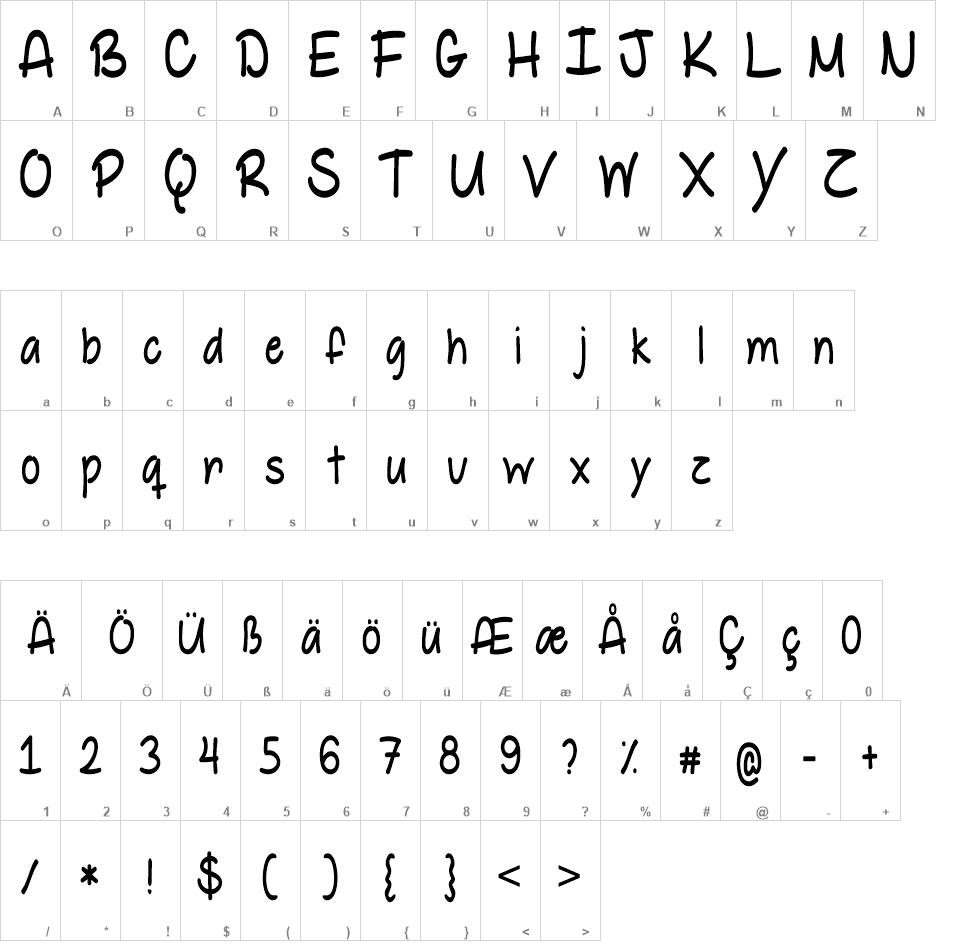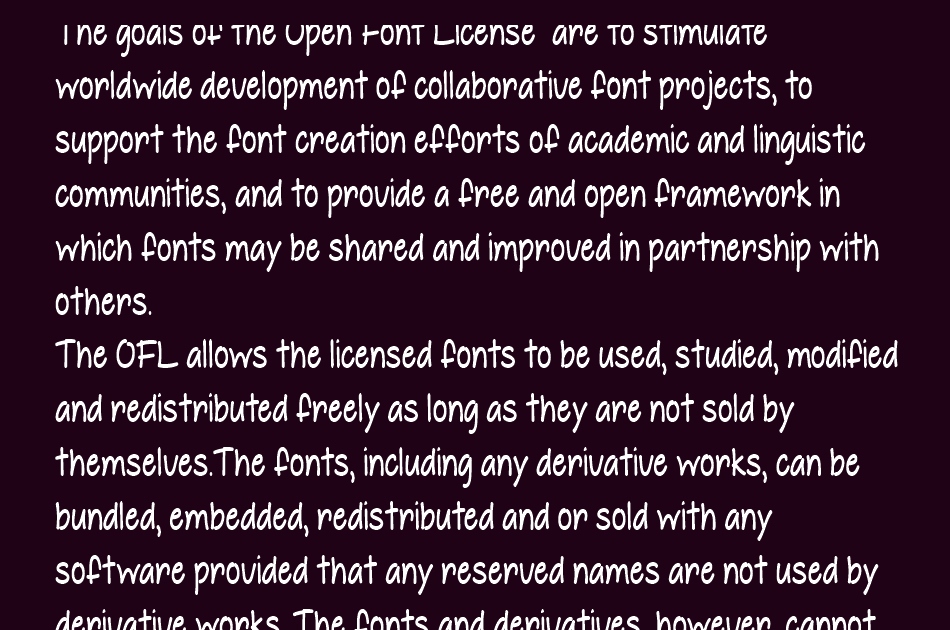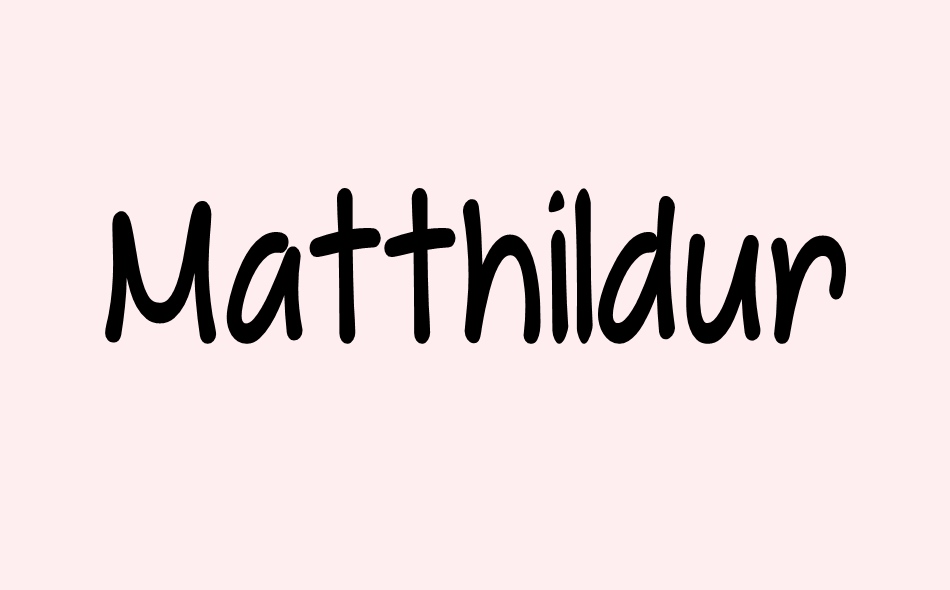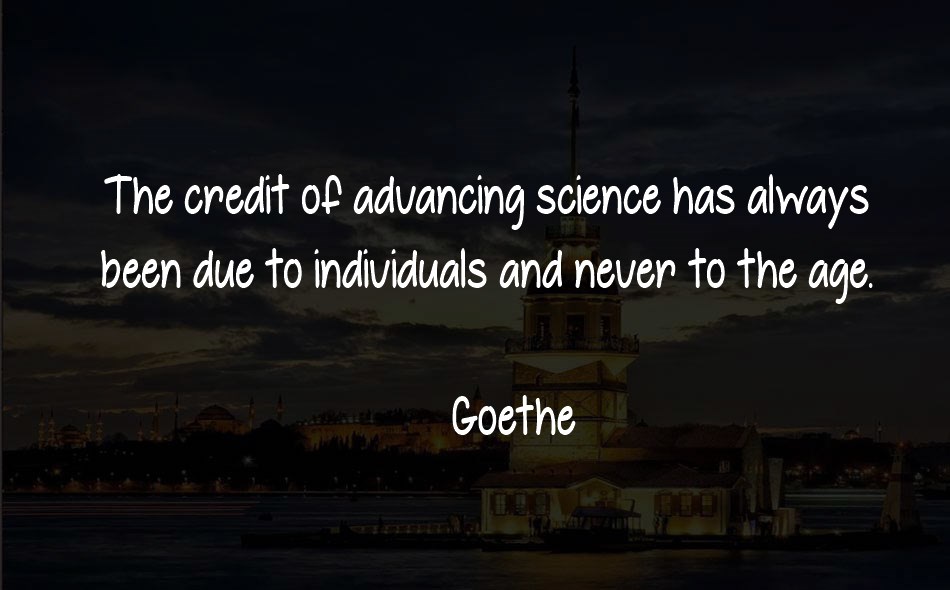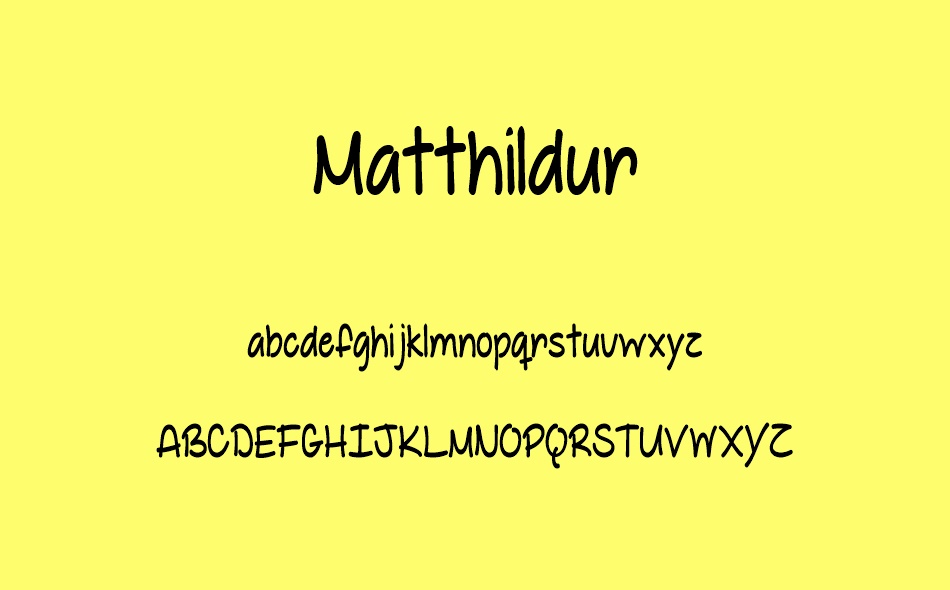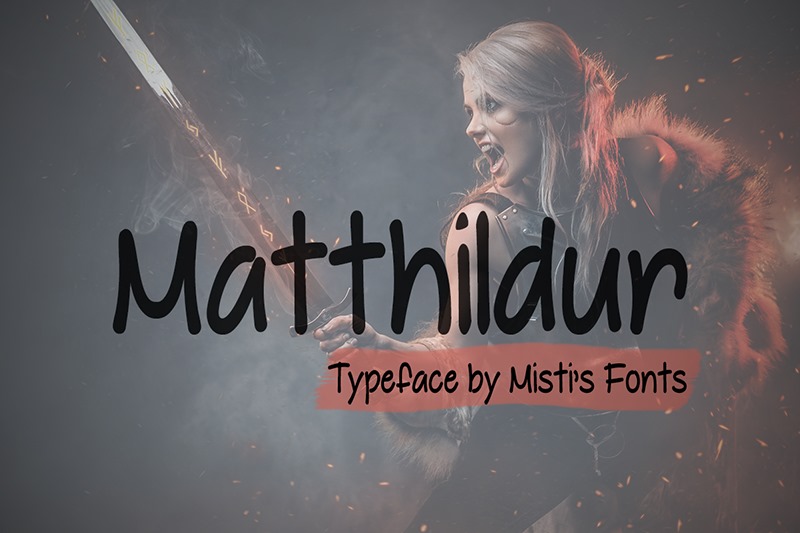
Matthildur font
Matthildur is a bold cartoon-style typeface. Its fun and whimsical appearance would look great in a variety of projects, such as logos, shop banners, advertisements, product labels, and more.